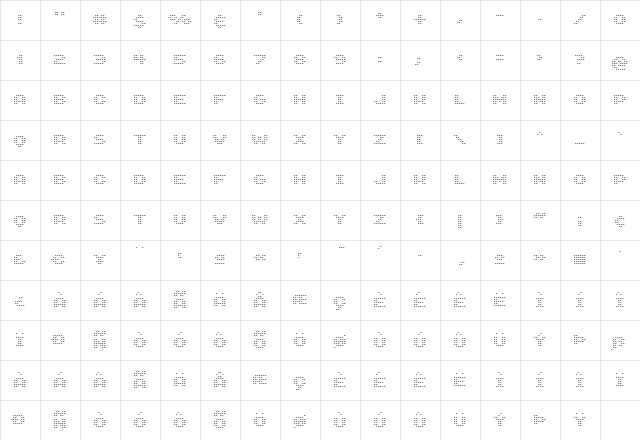
GenetrixSquareCore Medium Font Preview
GenetrixSquareCore Medium
Design Context for GenetrixSquareCore Typeface
GenetrixSquareCore takes a measured approach to typography — its balanced proportions and neutral character make it a reliable workhorse for both digital and print work.